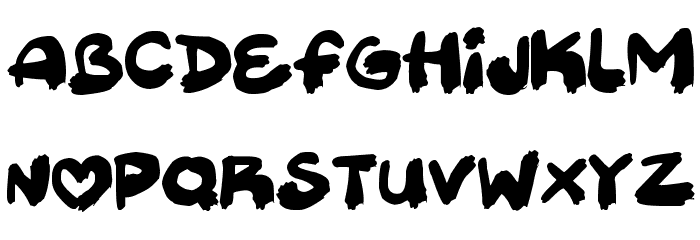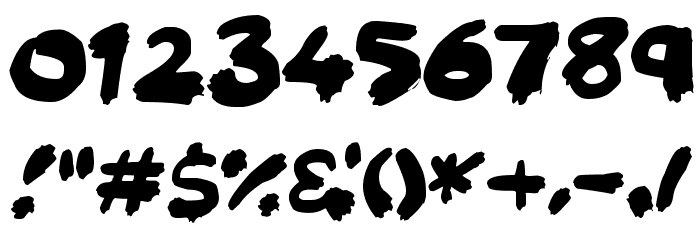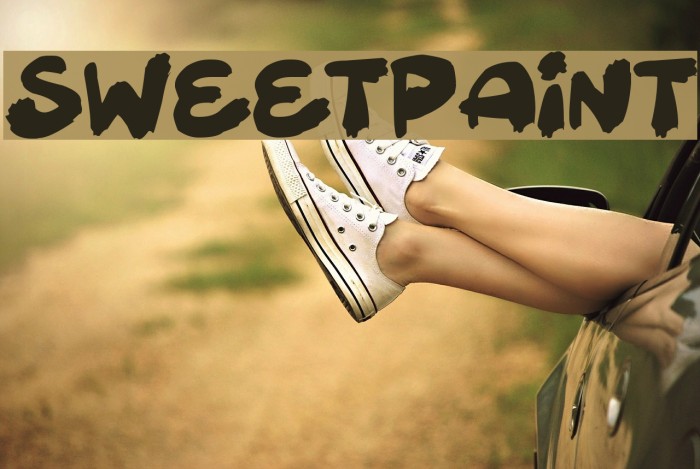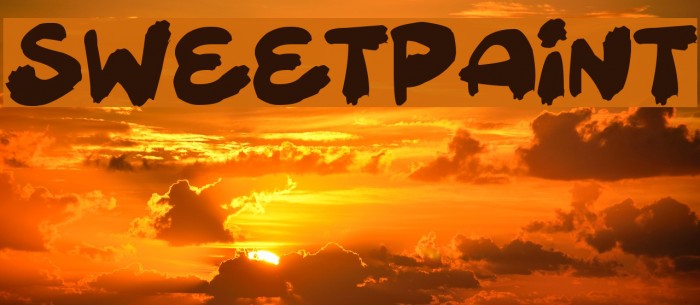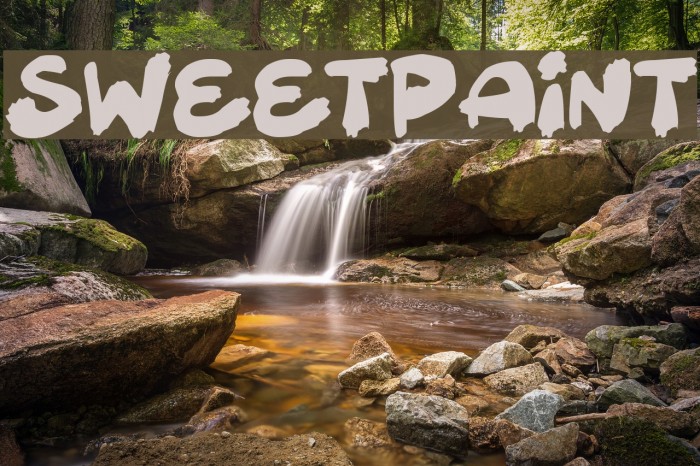
Sweetpaint Font
This font features a bold, expressive style with a hand-painted appearance. The characters are thick and have an irregular, organic form, giving them a dynamic and artistic feel. The strokes are uneven, with some letters appearing slightly distorted, adding to the playful and creative vibe. The font includes both uppercase and lowercase letters, numbers, and a variety of special characters. Its boldness and unique style make it stand out, perfect for projects that require a strong visual impact.
A bold, hand-painted style font with an expressive and artistic appearance.
- Proposed Projects: Ideal for creative projects such as posters, album covers, branding, and artistic merchandise.
- Overall Style: Artistic, Playful